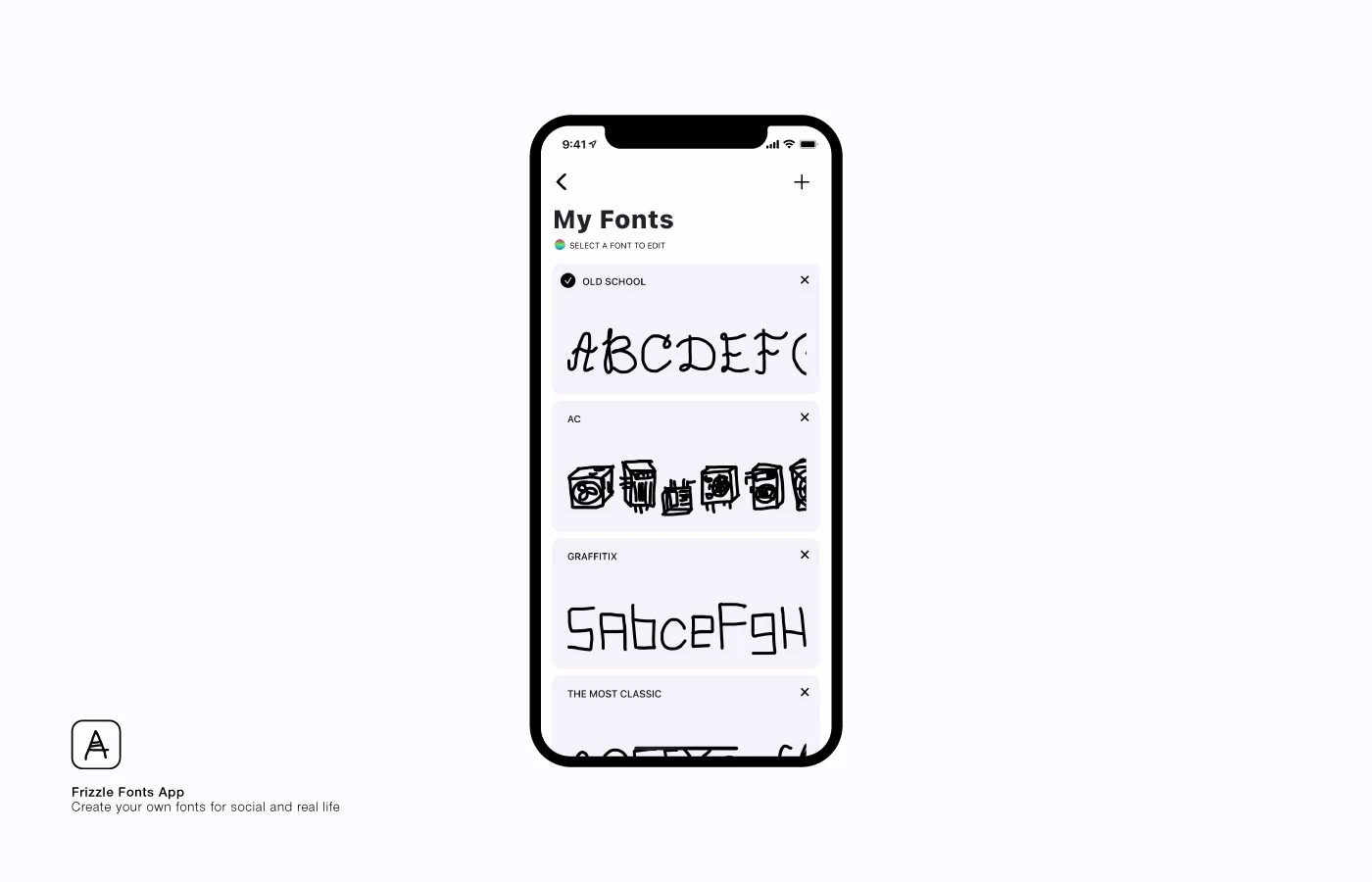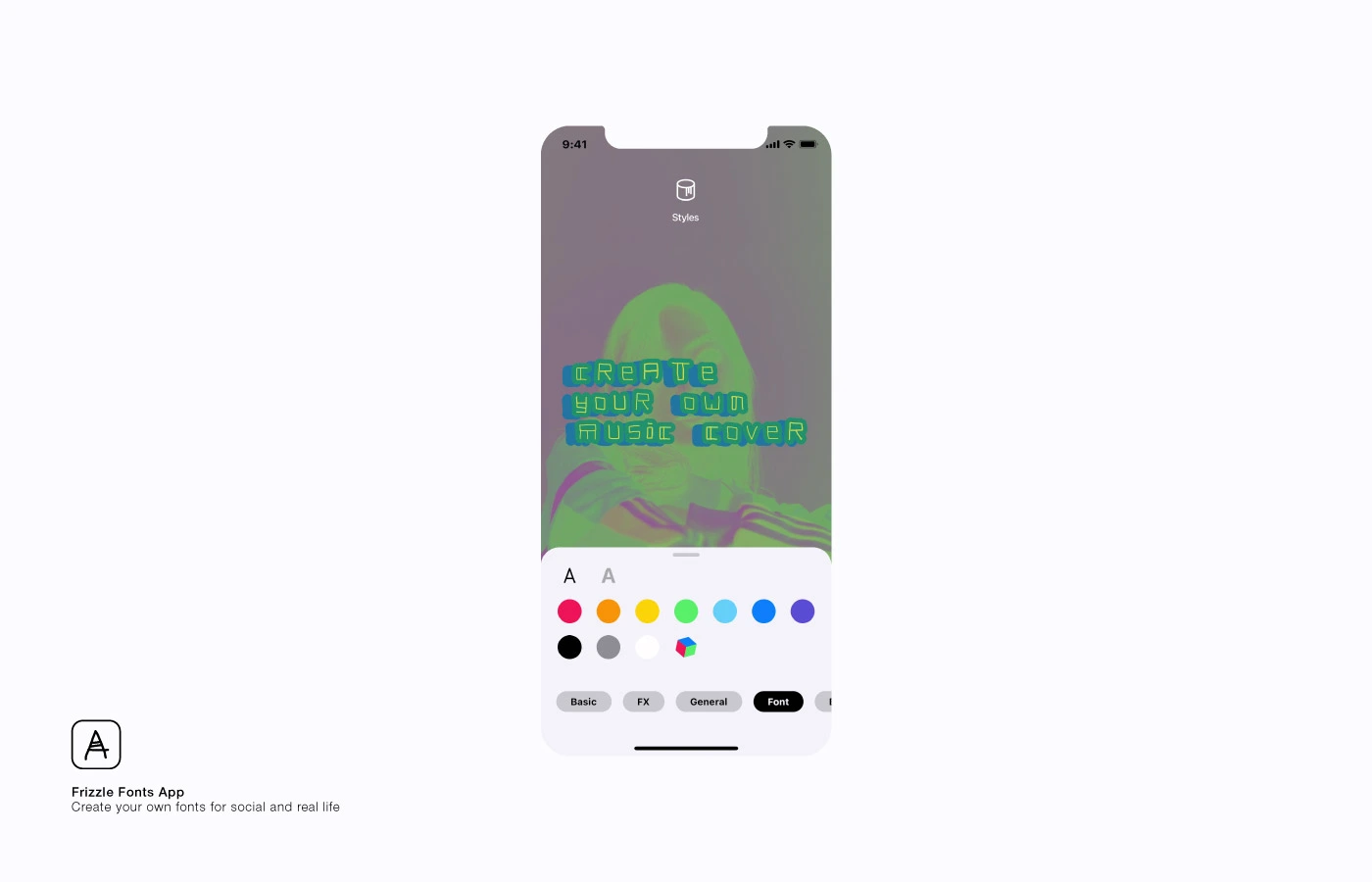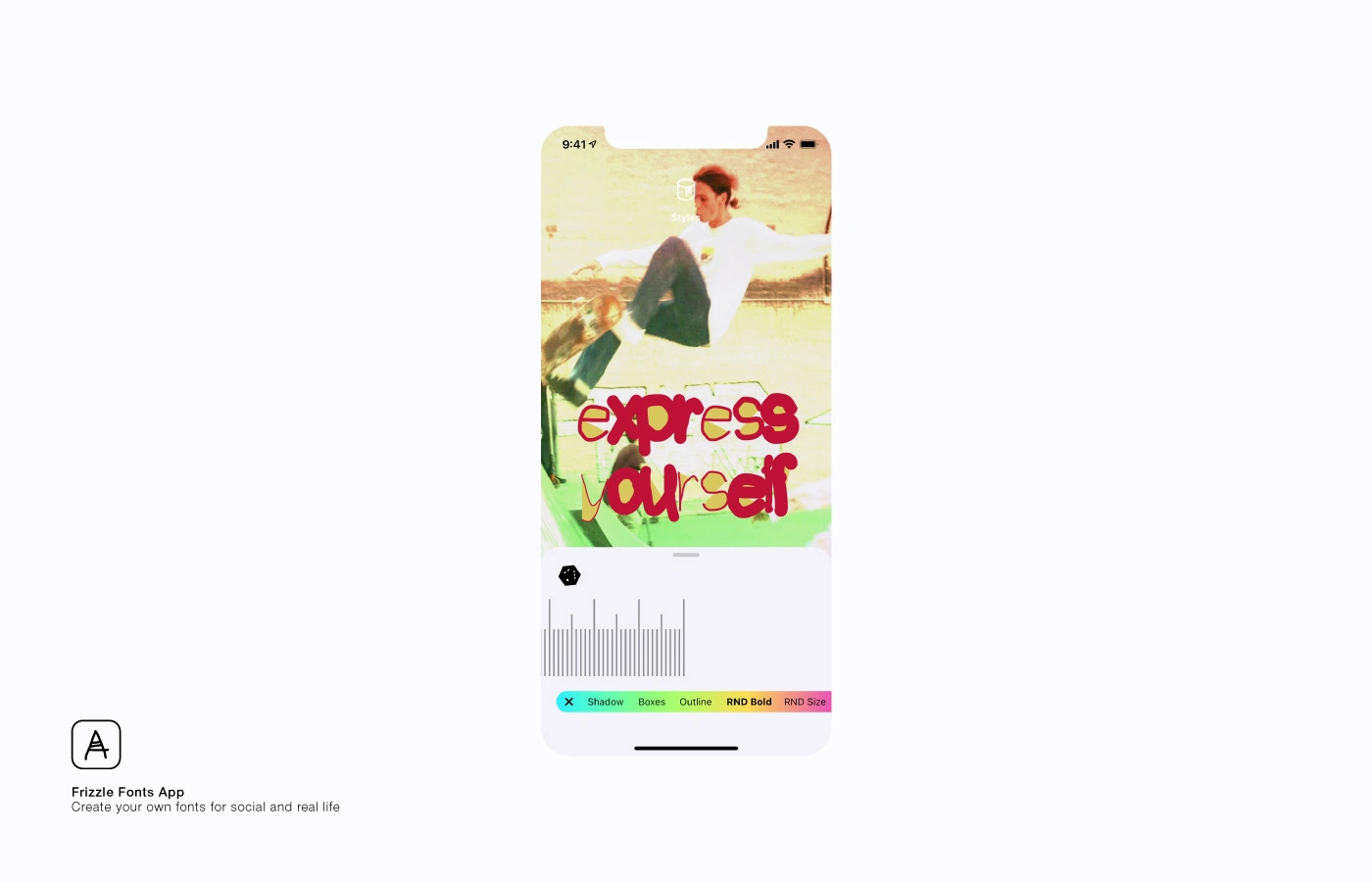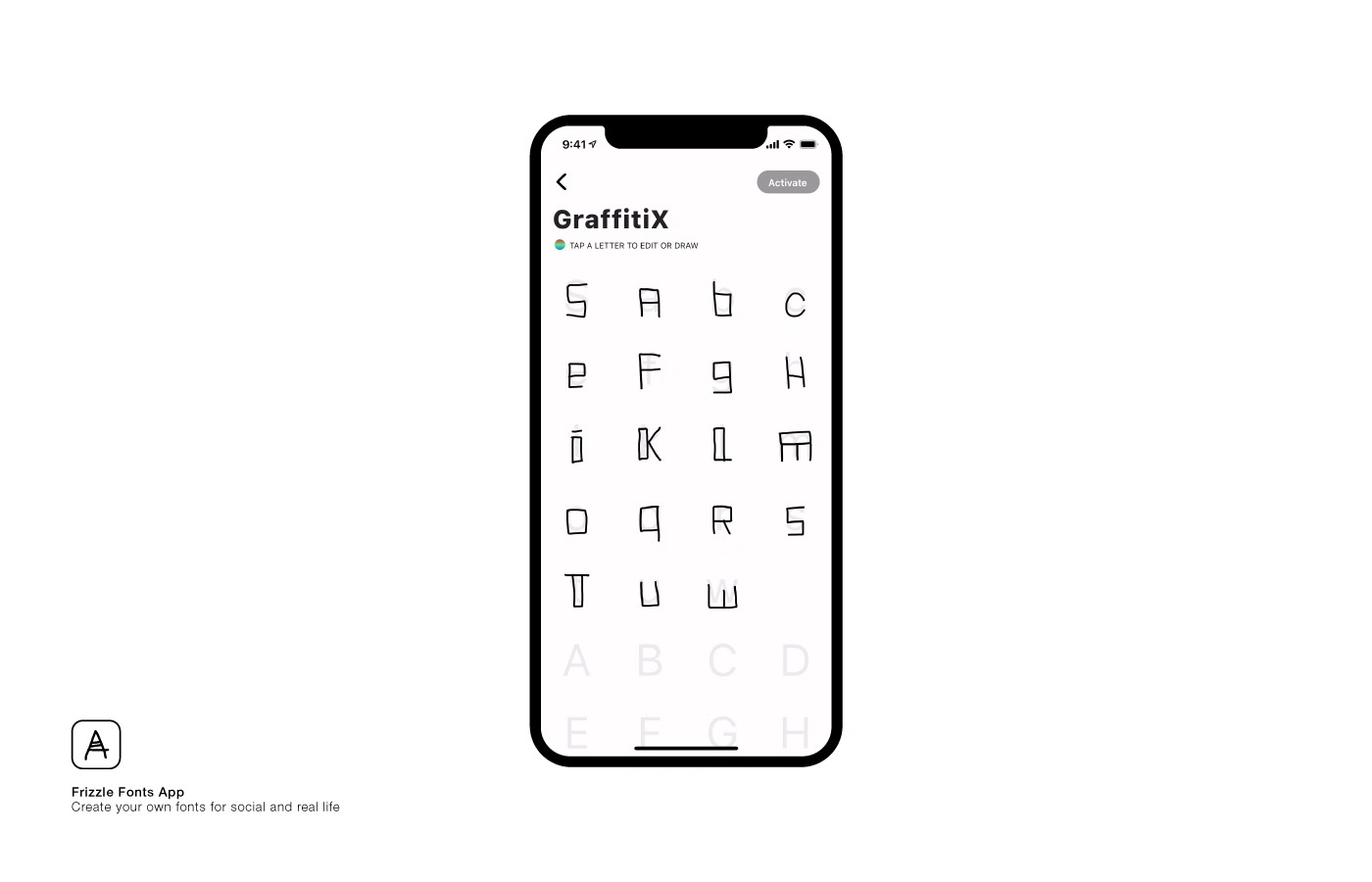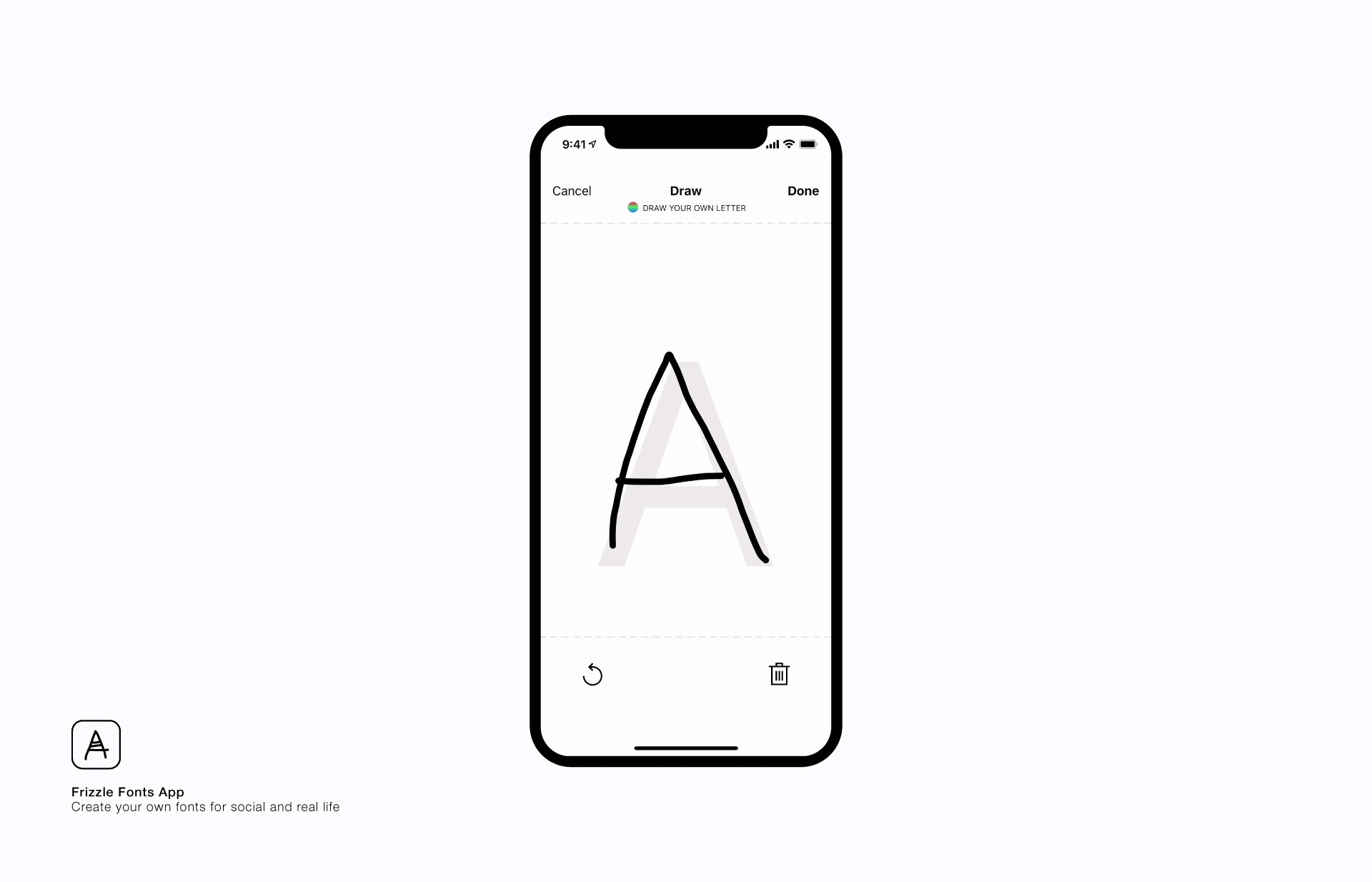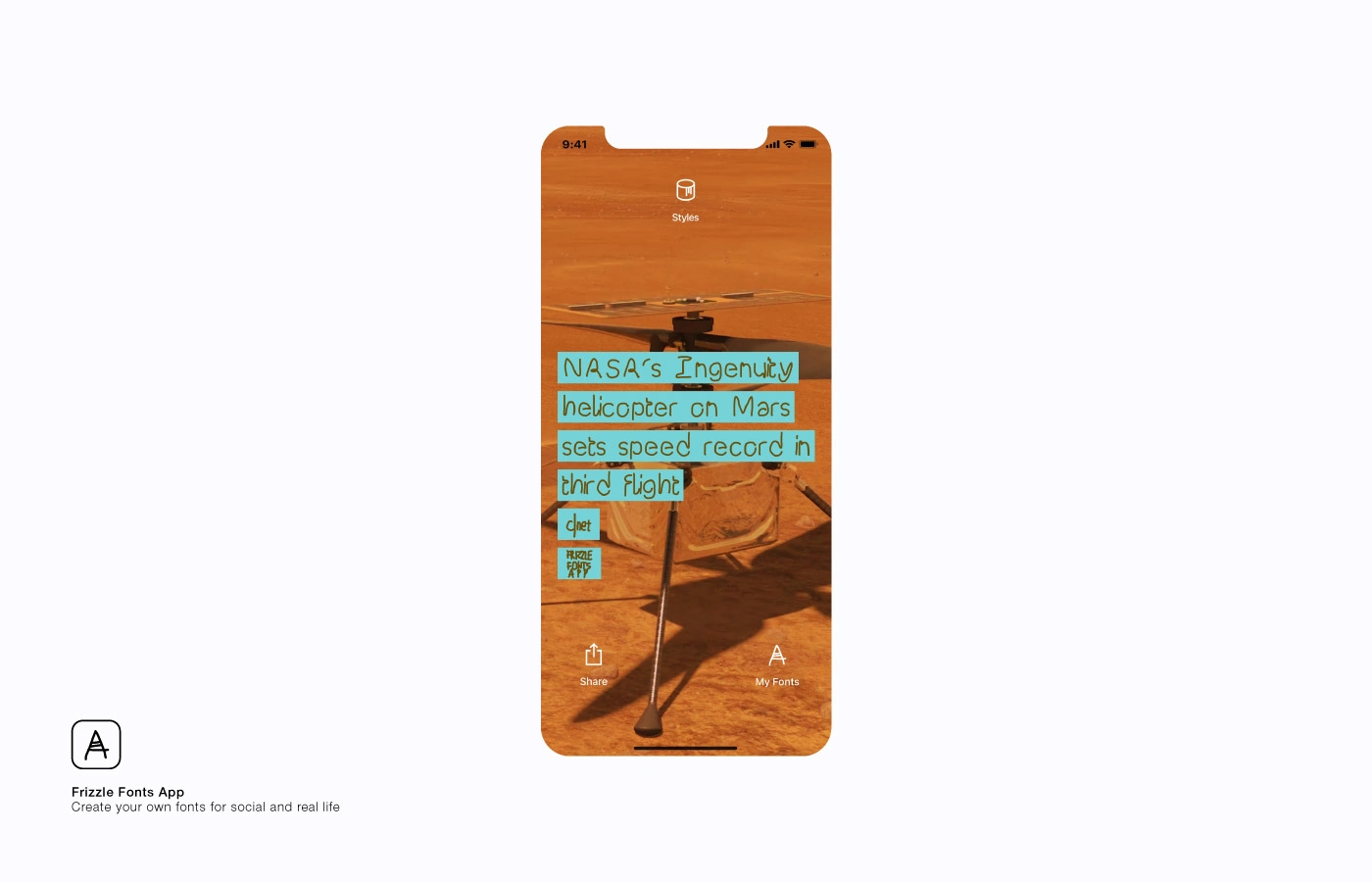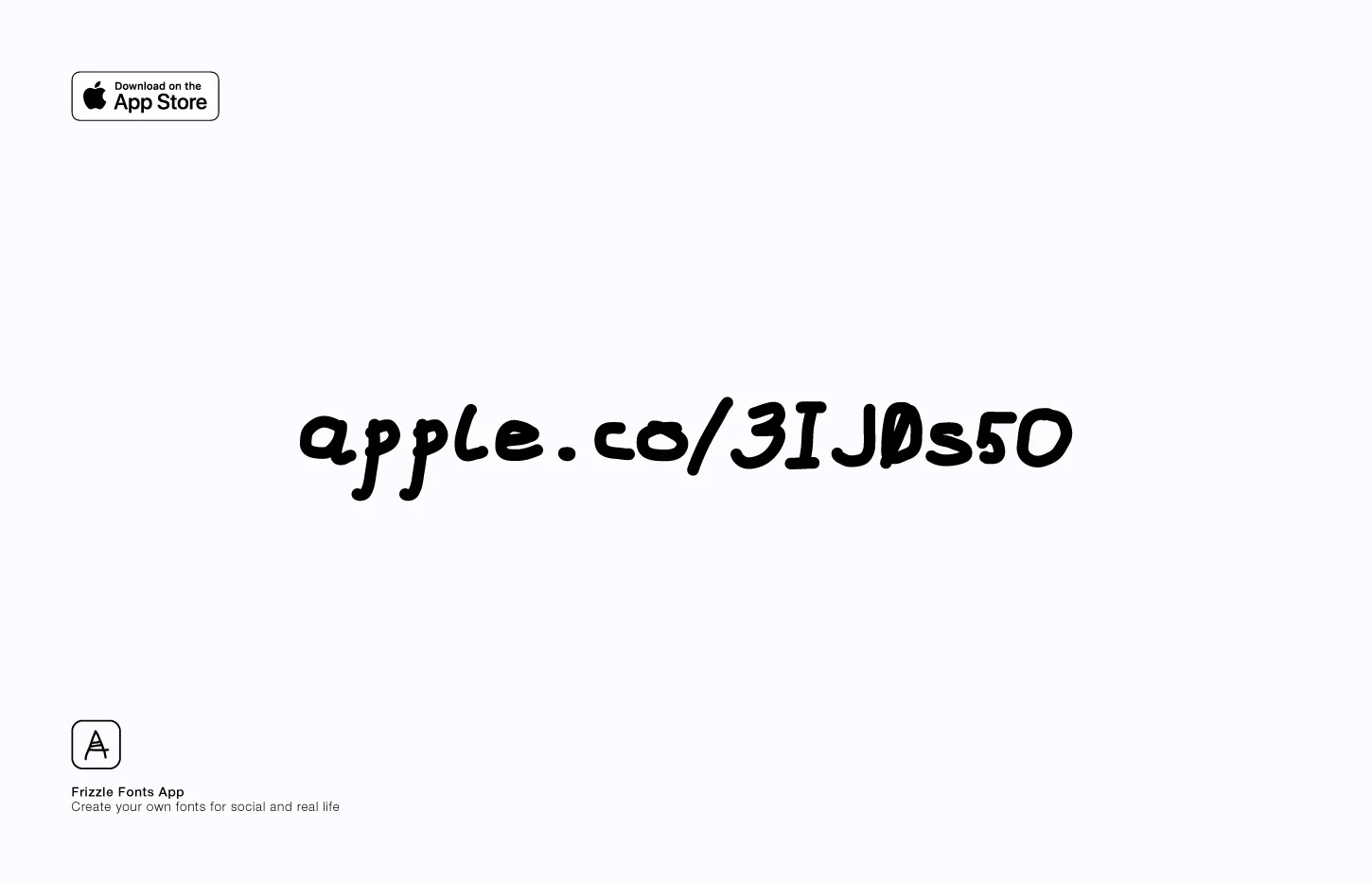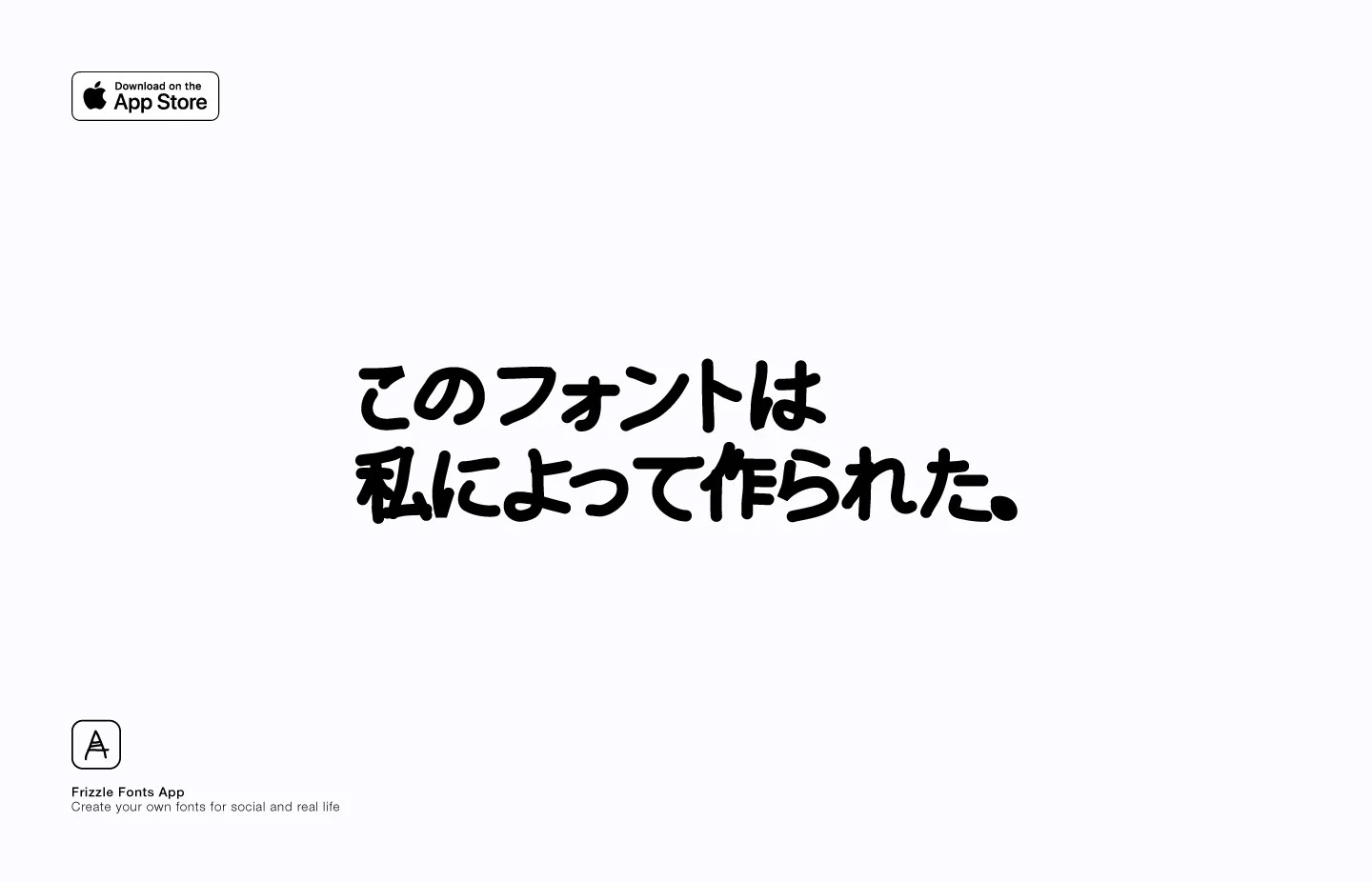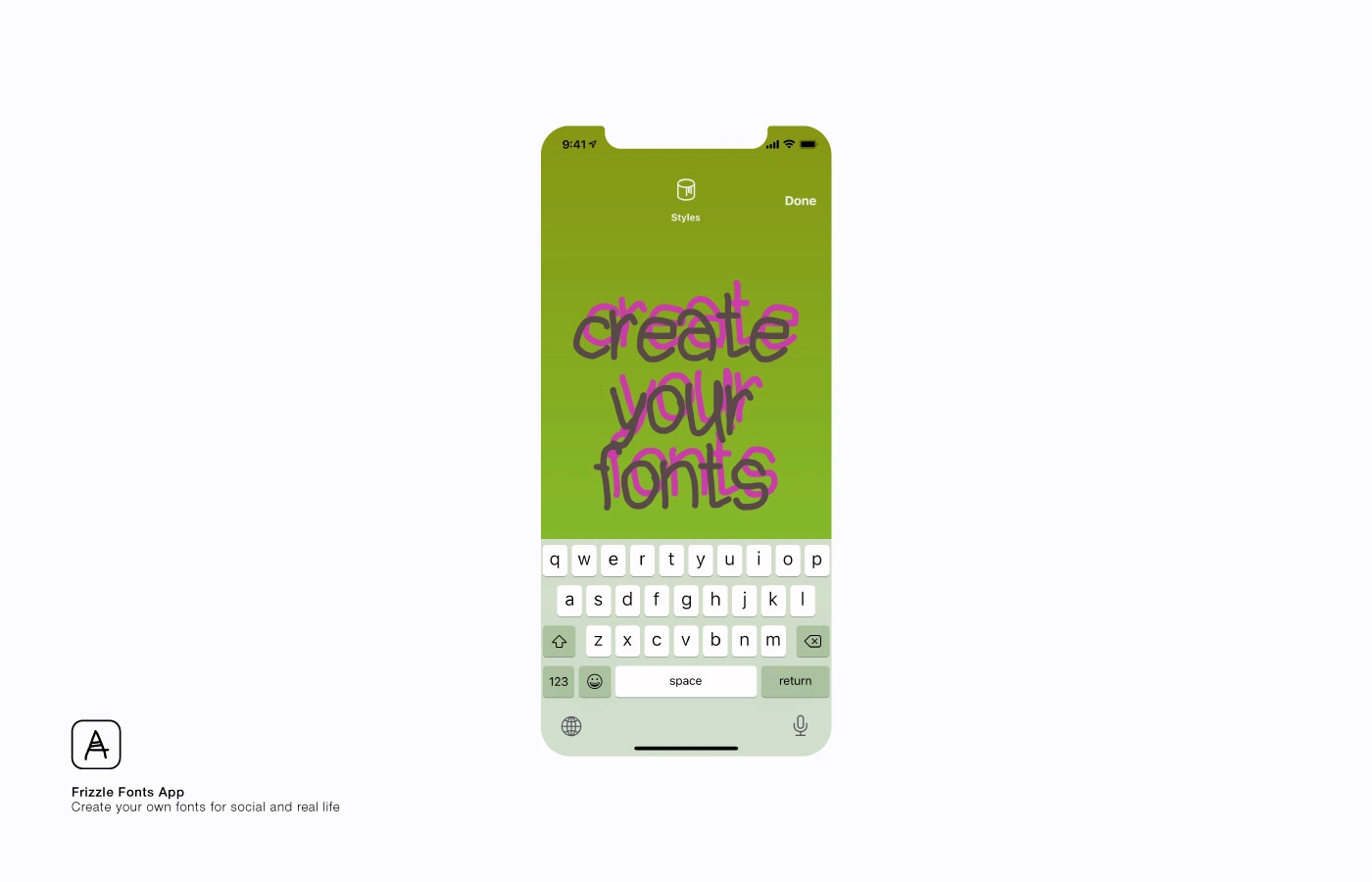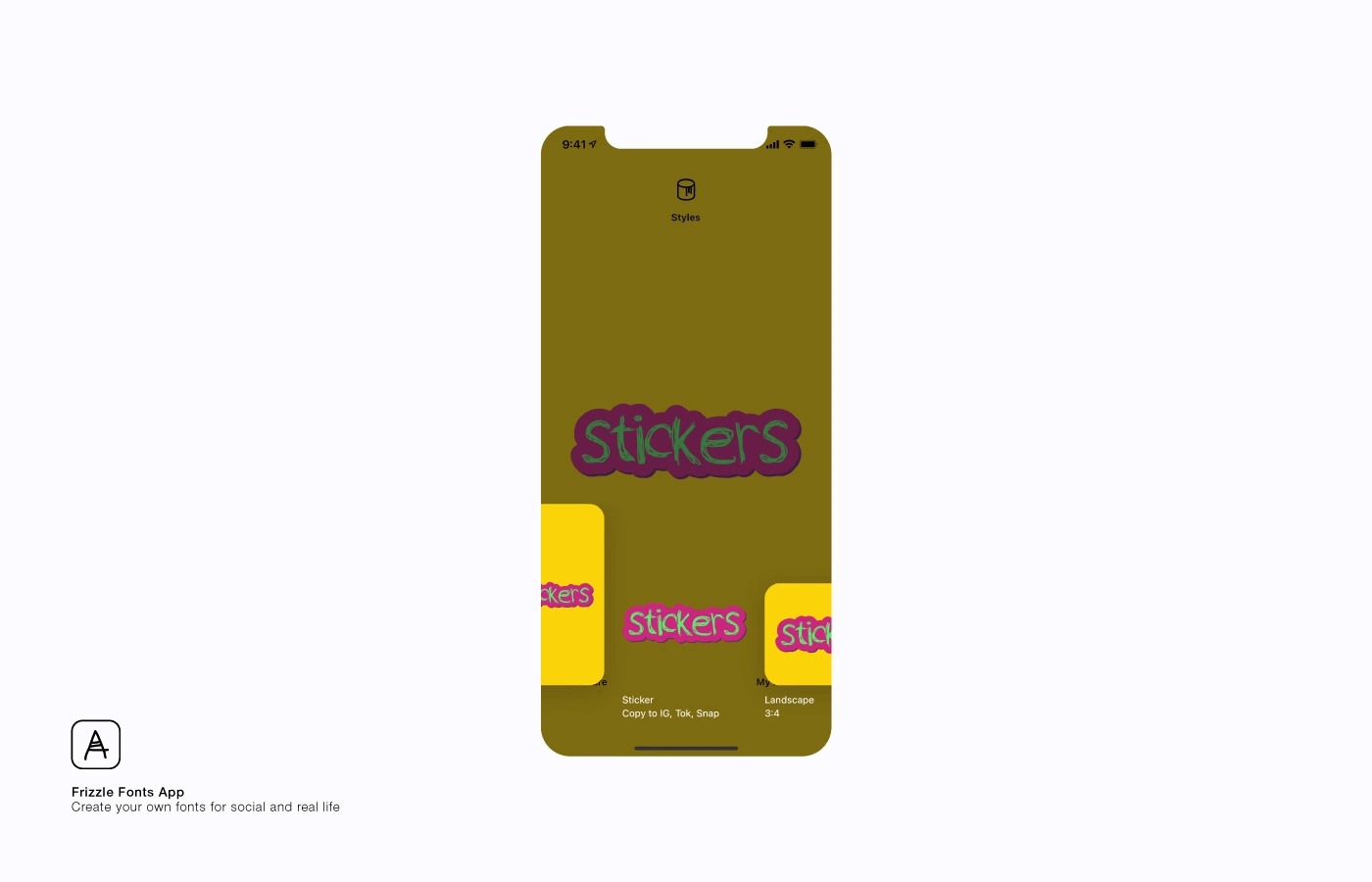
Frizzle Fonts App For Creating Your Own Fonts
Frizzle Fonts App Create your fonts for social and real life
Frizzle Fonts — an app for creating your own fonts. Simple and playful — not for professionals. You can share captions on social media, use them as stickers, or print them on your T-shirts. Designed for anyone who wants to create without technical barriers. My idea, UI/UX. Programming — done by a friend who asked not to be named. A self-initiated project.
An app for creating your own fonts. Simple and playful. You can share captions on social media, use them as stickers, or print them on your T-shirts.